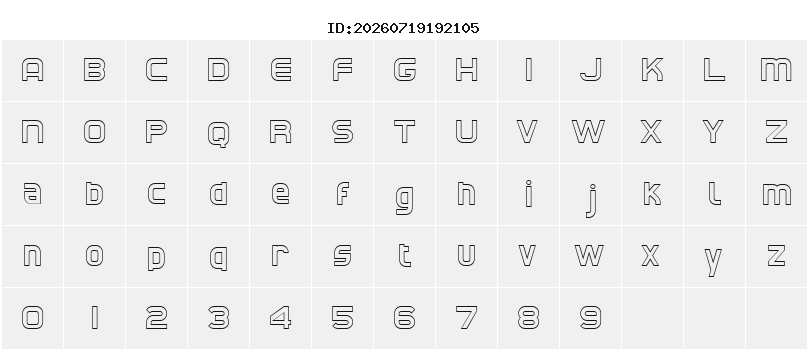
• Font Name: CAT North Licht
• Designer: Peter Wiegel
About CAT North Licht.ttf
CAT North Licht.ttf is a modern, elegant sans-serif font designed for ultimate readability and visual harmony. Perfect for branding, headlines, web design, and print materials.